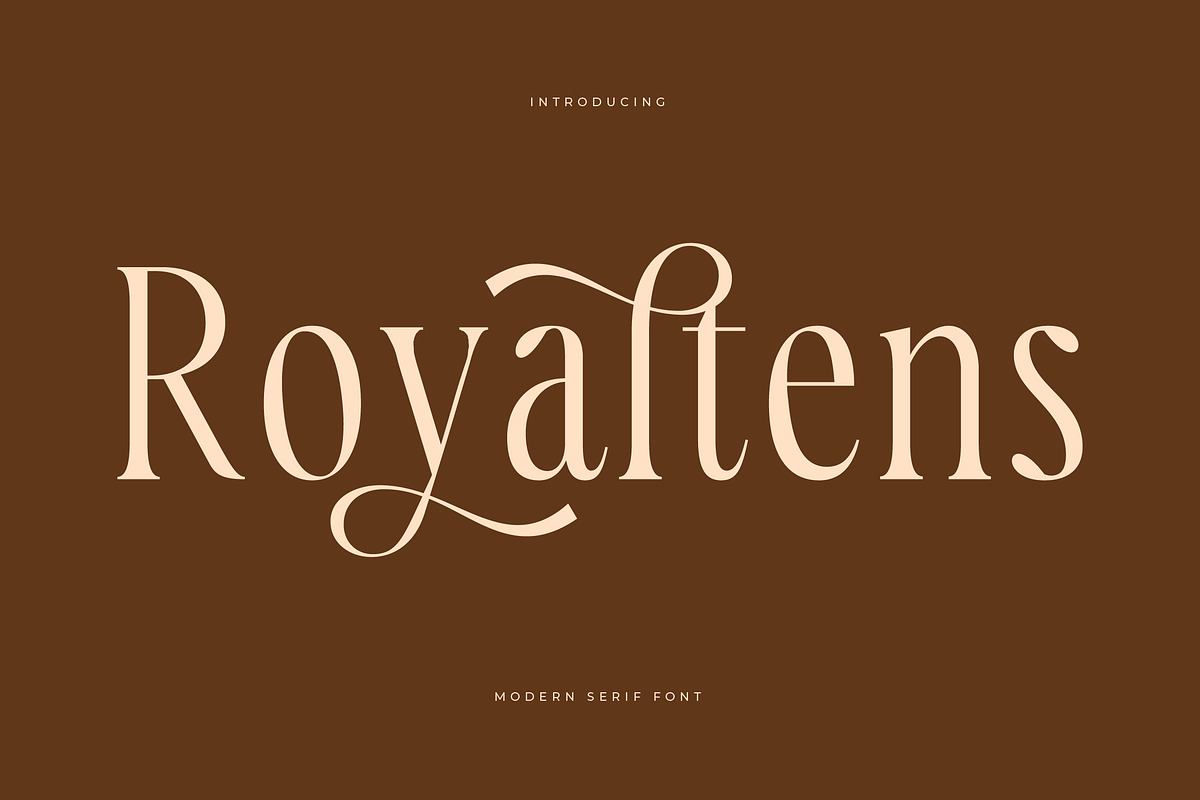
Royaltens Modern Serif Font Free Download is a refined and contemporary serif typeface that effortlessly blends timeless elegance with modern design. Featuring clean lines, sharp serifs, and sophisticated proportions, this font is perfect for high-end branding, editorial layouts, logos, invitations, and more.
The versatile design of Royaltens Modern Serif Font Free Download ensures it works beautifully across a wide range of projects, from luxury brands to creative marketing materials. Its bold yet refined aesthetic makes it ideal for both print and digital applications, providing a professional, stylish touch to your typography.